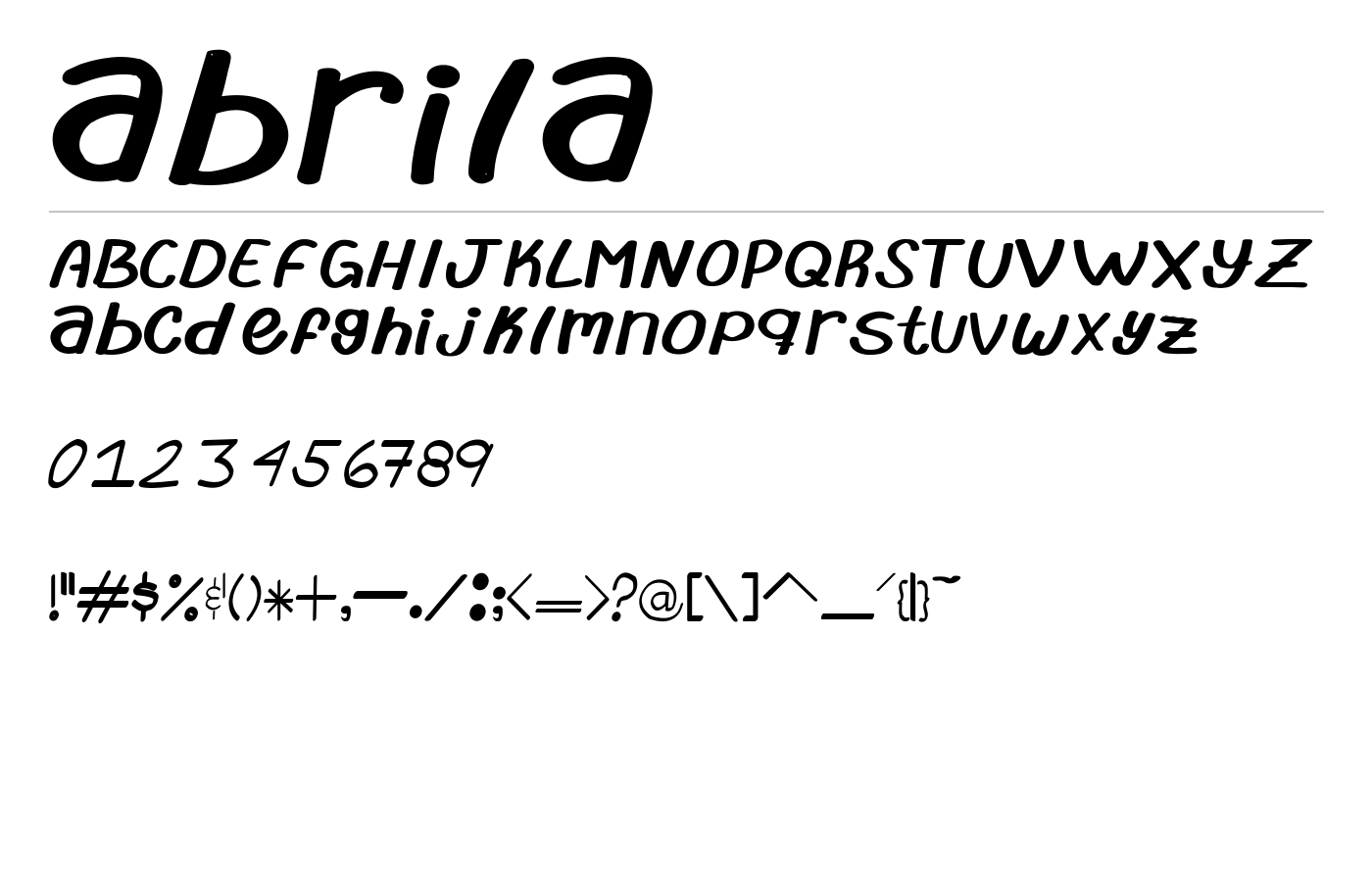
Abrila is a playful and casual sans serif font with a handwritten feel, characterized by its gently rounded, slightly irregular strokes and medium contrast. It features a moderate x-height and single-story letterforms, giving it an approachable and informal personality that works well for inviting headlines, creative logos, and friendly branding. This font is ideal for projects that aim to convey warmth and originality without sacrificing readability.
abrila Font
About abrila Font
| Designer | Abril Arianna Aguilar Torres |